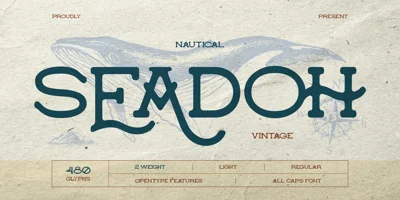
Seadoh Font
Seadoh Font is perfect for alternative music band logos, indie record label branding, underground music festival posters, artistic magazine layouts, experimental design projects, contemporary art gallery signage, creative agency identity, bohemian lifestyle brands, and avant-garde social media campaigns. This distinctive typeface brings artistic rebellion and creative nonconformity to both digital and print design applications.
Seadoh Font is exciting because it embodies the raw creativity and independent spirit of alternative culture, making it an exceptional choice for designers who want to challenge conventional aesthetics with authentic artistic expression. Its unconventional letterforms and experimental character provide the perfect combination of creative rebellion and readable functionality, ensuring your projects communicate artistic authenticity, cultural independence, and creative innovation that resonates with alternative audiences seeking genuine artistic expression.
The Seadoh Font family includes multiple stylistic variations and experimental character treatments, featuring regular and bold weights with alternative letterforms, artistic ligatures, and creative symbol sets. Each style maintains consistent alternative aesthetics while offering flexibility for different creative applications, allowing designers to build unique visual systems that reflect independent artistic vision and nonconformist design principles.
Whether you're designing for creative industries, alternative brands, or artistic projects, Seadoh Font delivers authentic alternative appeal and creative authenticity that connects with audiences seeking genuine artistic expression. This premium typeface offers designers the creative freedom and artistic edge needed to create designs that communicate independent spirit, cultural rebellion, and creative excellence effectively. The font's alternative character makes it perfect for headlines, artistic branding, and creative applications where nonconformist authenticity is essential. Download Seadoh Font today and energize your creative projects with genuine alternative sophistication and independent typography excellence that defines creative rebellion.